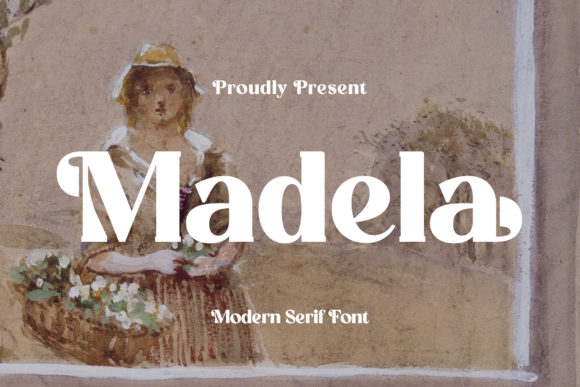
Behold, the Madela Font: An Expression of Boldness and Elegance for Your Digital Presence
In a digital world brimming with visual noise, your online presence needs to stand out, to captivate, to leave an indelible mark on your audience. Introducing the Madela Font, a serif font family that exudes boldness and elegance, designed to elevate your website or digital project to unprecedented heights.
Madela is not just a font; it's an experience. Its thick, bold letters command attention, while its refined curves and serifs add a touch of sophistication and charm. Together, they create a visual symphony that will leave your audience spellbound.
We meticulously crafted Madela to be PUA encoded, ensuring effortless access to all its glyphs and swashes. Unleash your creativity and let your imagination run wild as you explore the endless possibilities that Madela offers.
With Madela, your website will radiate an aura of confidence and professionalism. Its bold presence will grab attention, while its elegant curves will leave a lasting impression. Whether you're creating a portfolio, an online store, or a corporate website, Madela is the perfect choice to convey your message with impact and style.